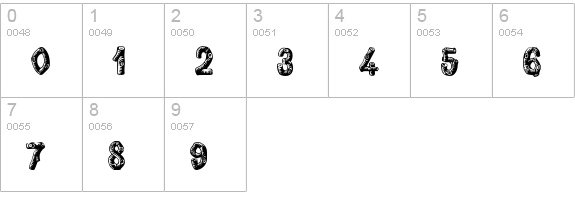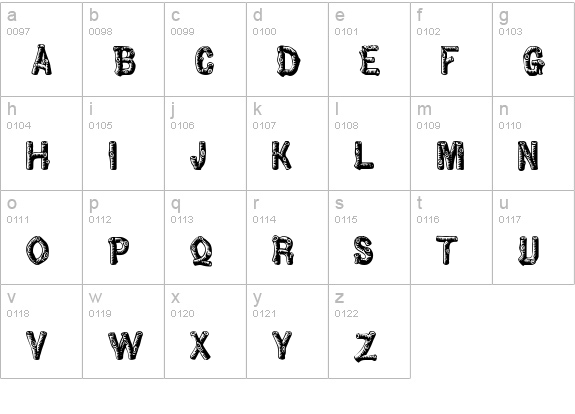
Pinewood MF Font Details
Pinewood MF is a charming and versatile font that exudes a sense of warmth and nostalgia. Its handcrafted appearance gives it a unique and inviting feel, making it perfect for a wide range of design projects. Whether you're working on a vintage-inspired poster, a cozy greeting card, or a rustic logo, Pinewood MF is sure to add a touch of character and personality. What makes Pinewood MF even more appealing is that it is completely free to download. You can easily get your hands on this delightful font at FontsMarket.com, where you can explore a wide selection of high-quality fonts for all your creative needs. With Pinewood MF in your font collection, you'll have a versatile and stylish option that you can use time and time again without any cost. Don't miss out on the opportunity to enhance your designs with this beautiful and free font!